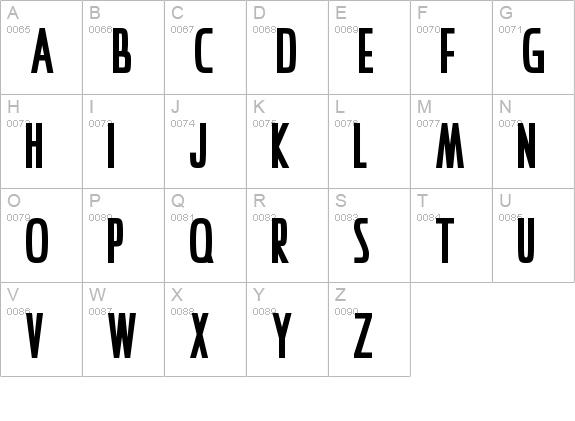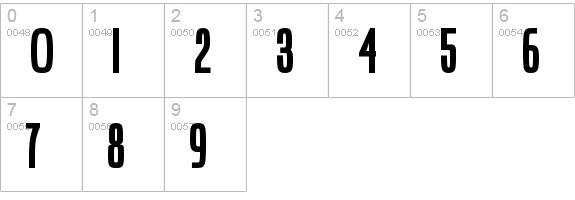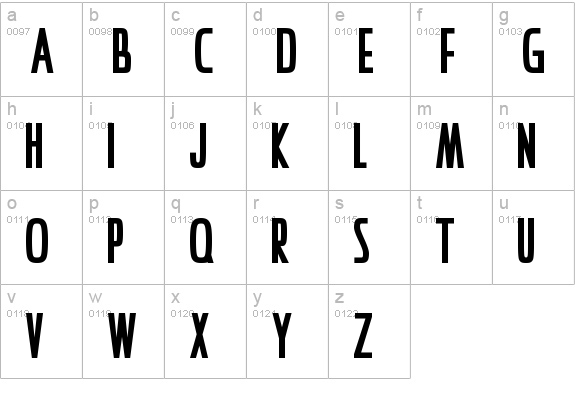
"I Am Awake font is a modern and stylish typeface that exudes a sense of energy and alertness. Its sleek lines and sharp edges give it a contemporary look that is perfect for a wide range of design projects. Whether you're creating a logo, poster, or website, this font will make your text pop.